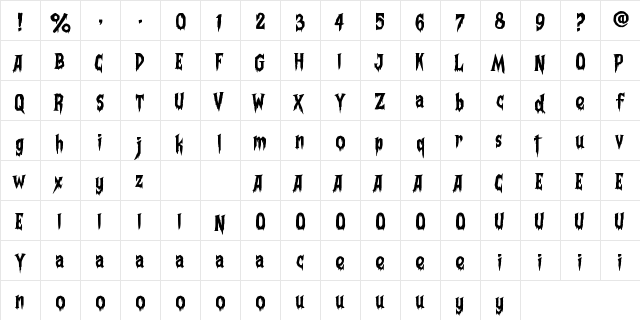
Frightmare Regular Font Preview
Frightmare Regular
Frightmare Regular Font Details
| Foundry | RVST |
| Designer | Indra Renov |
Design Context for Frightmare Typeface
Frightmare is a composed and adaptable typeface that performs quietly and consistently across a wide range of design contexts.